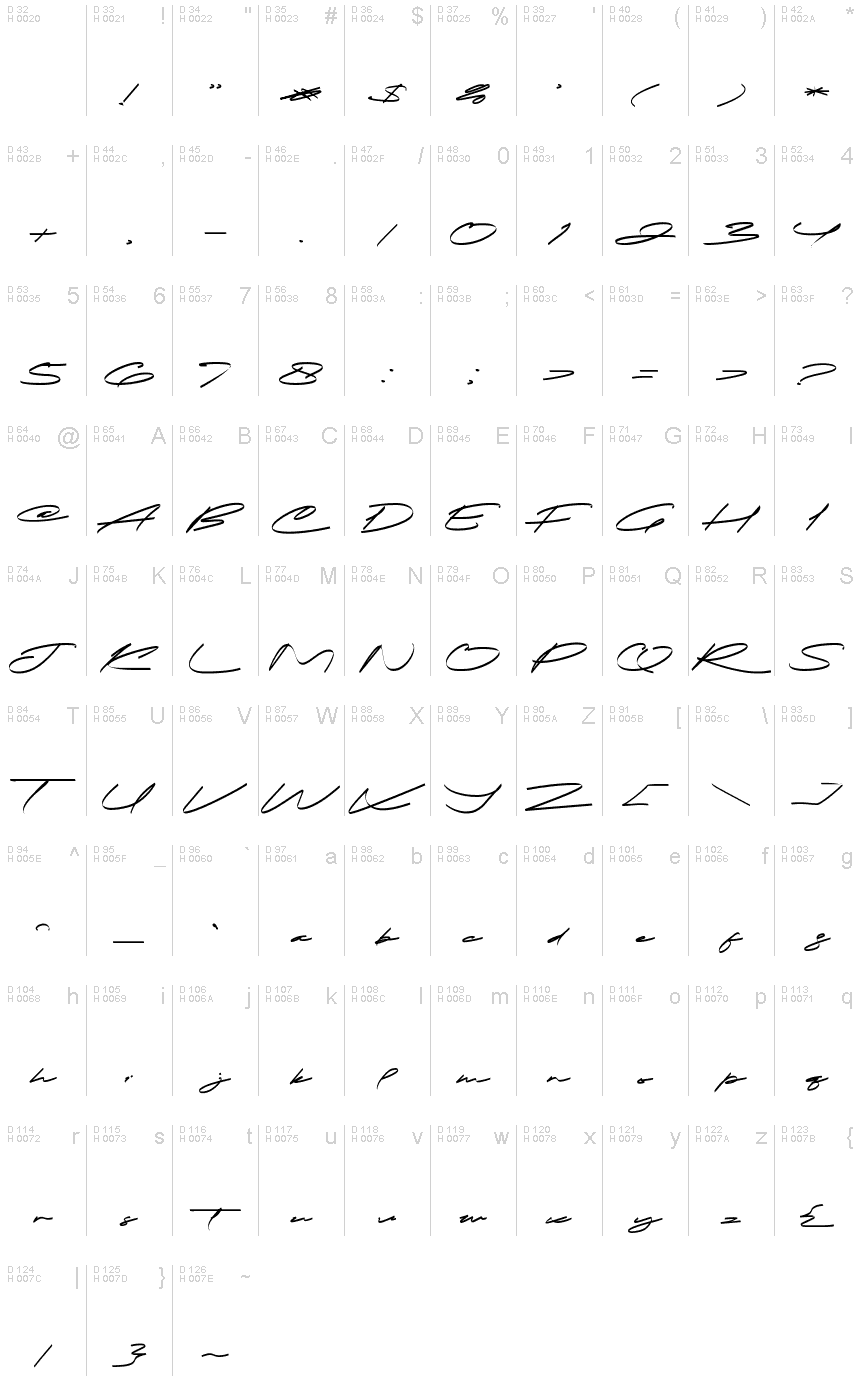
Calimindo Font
Introducing
This is our newest product, we give it a name This product is Calimindo Font.
Calimindo fonts are very good to use on:
Photographi, Wedding, Signature, Handwriting, any design project!